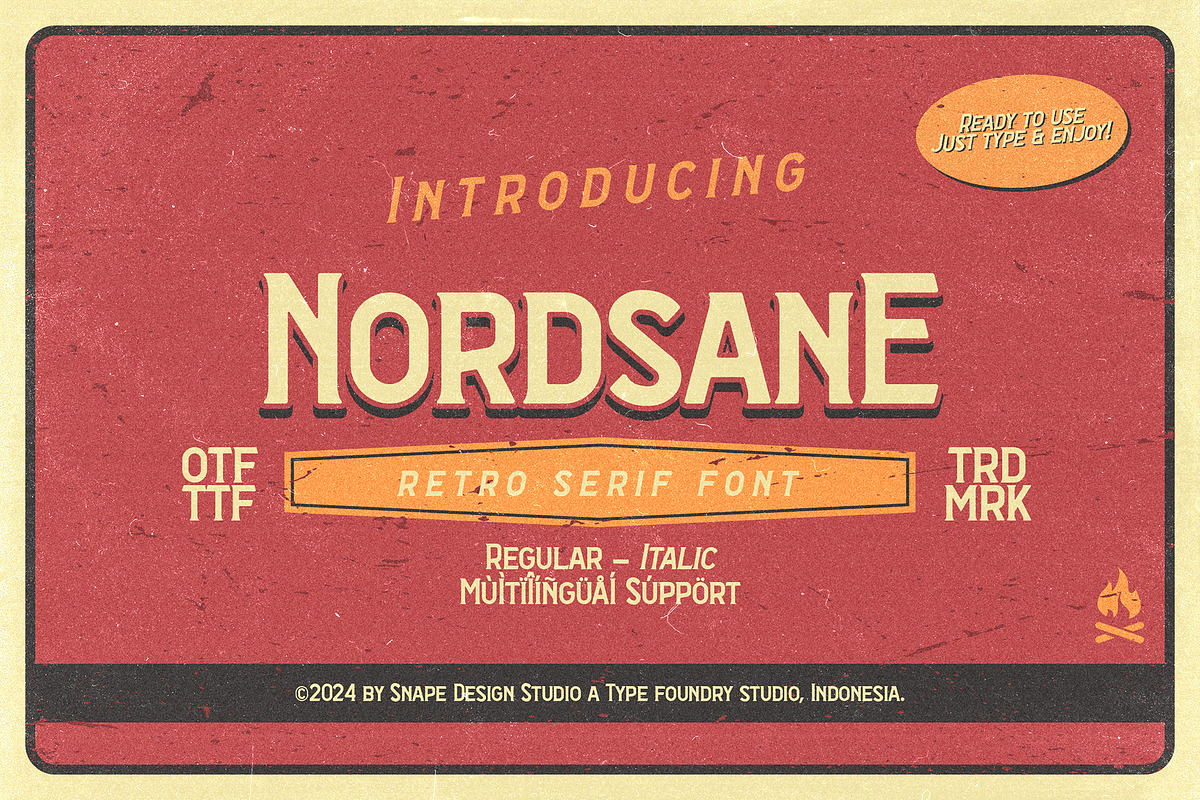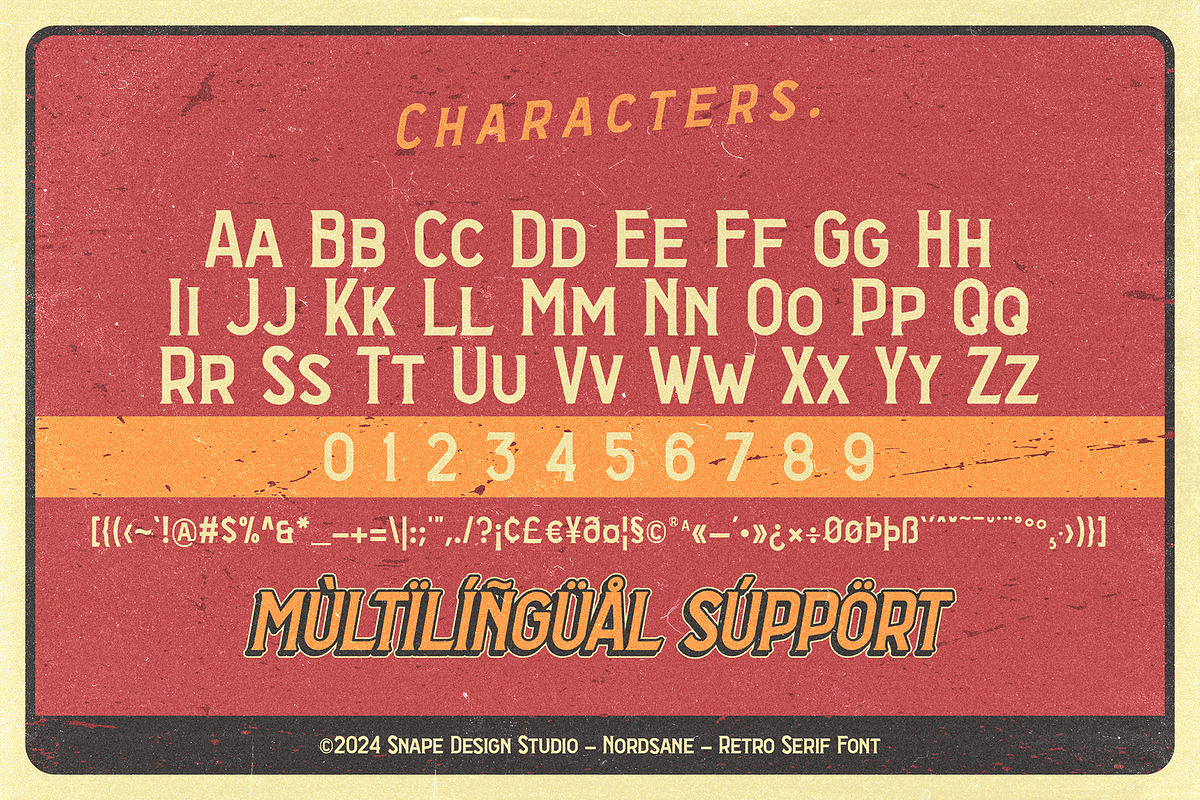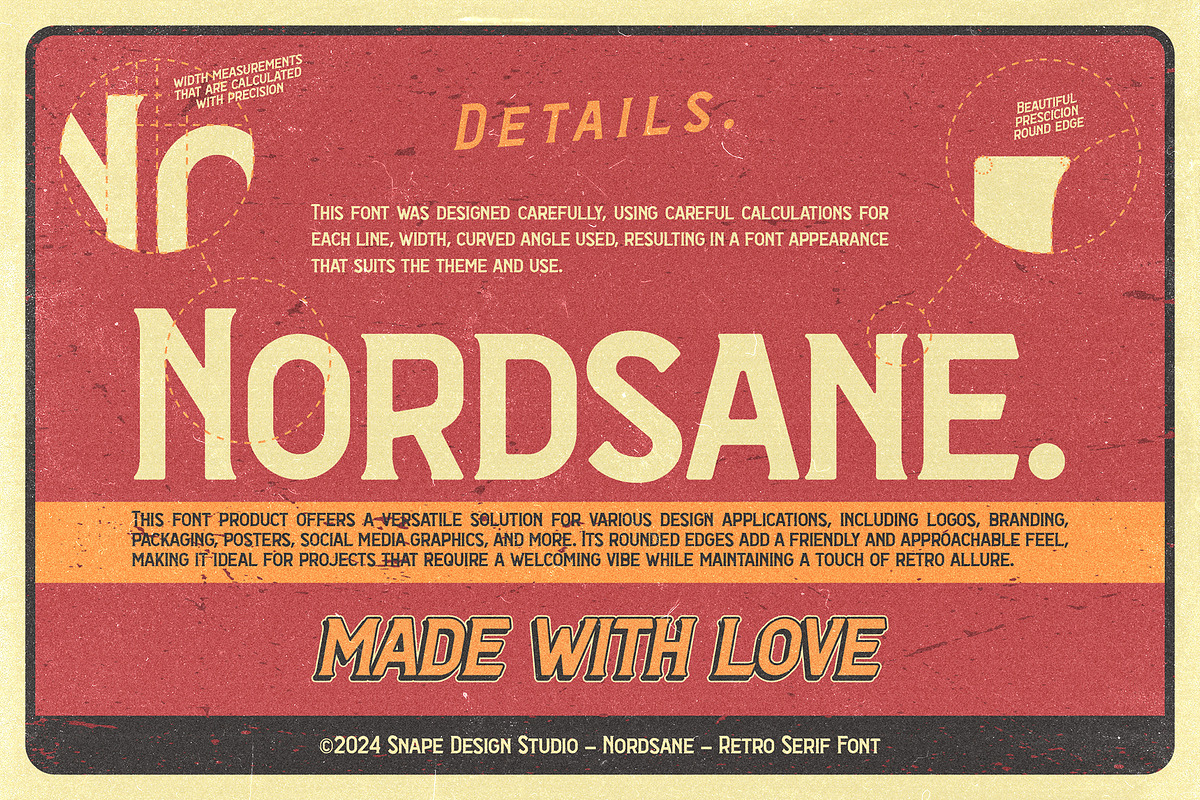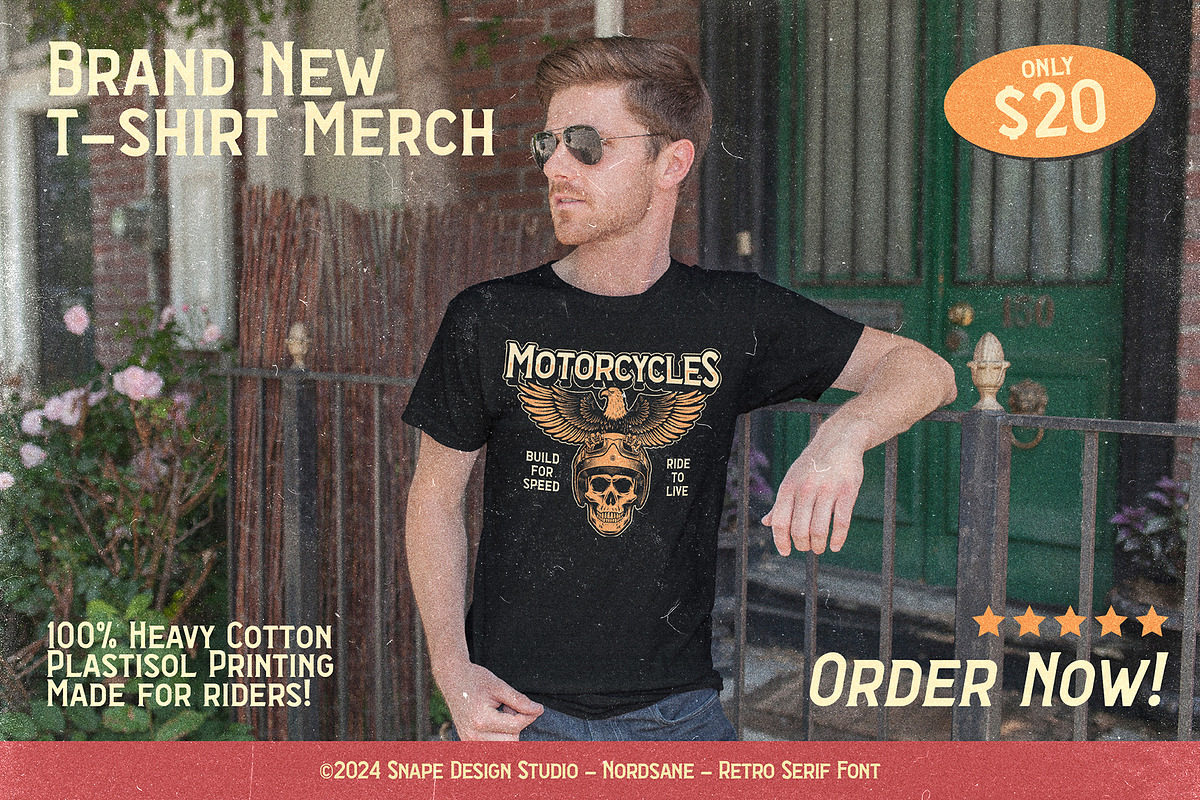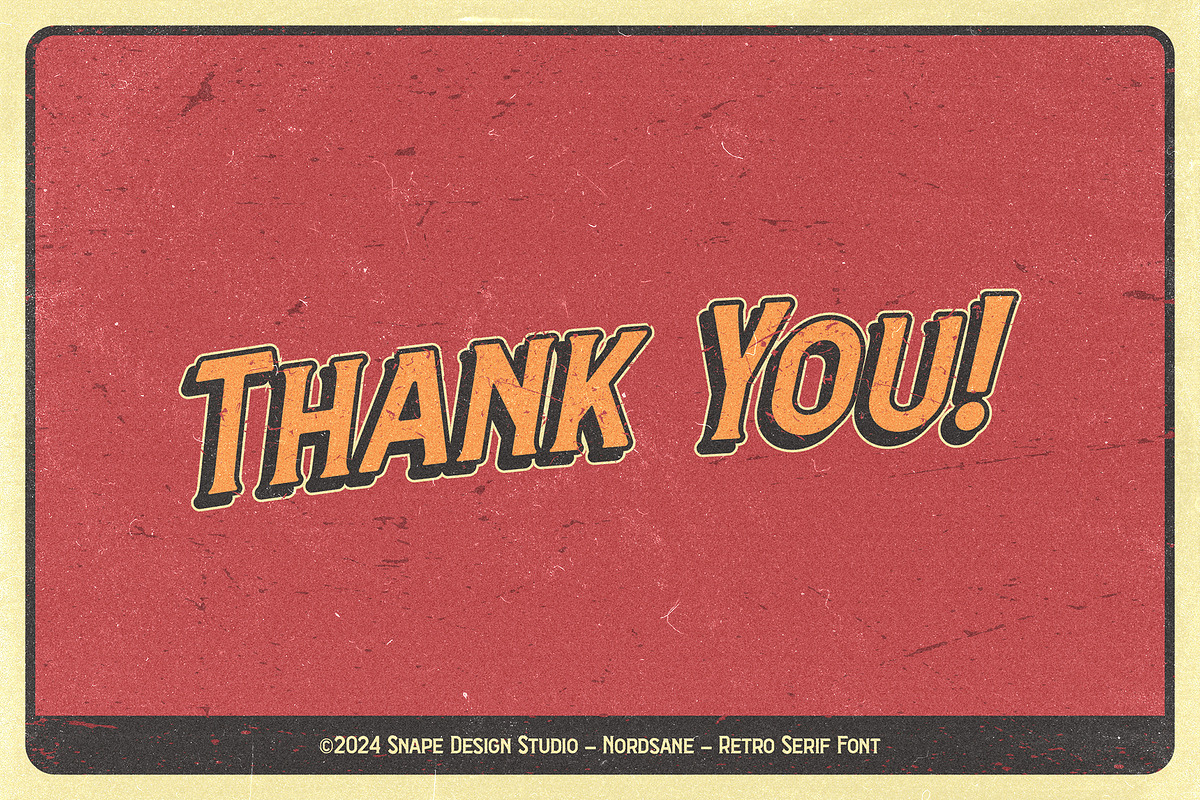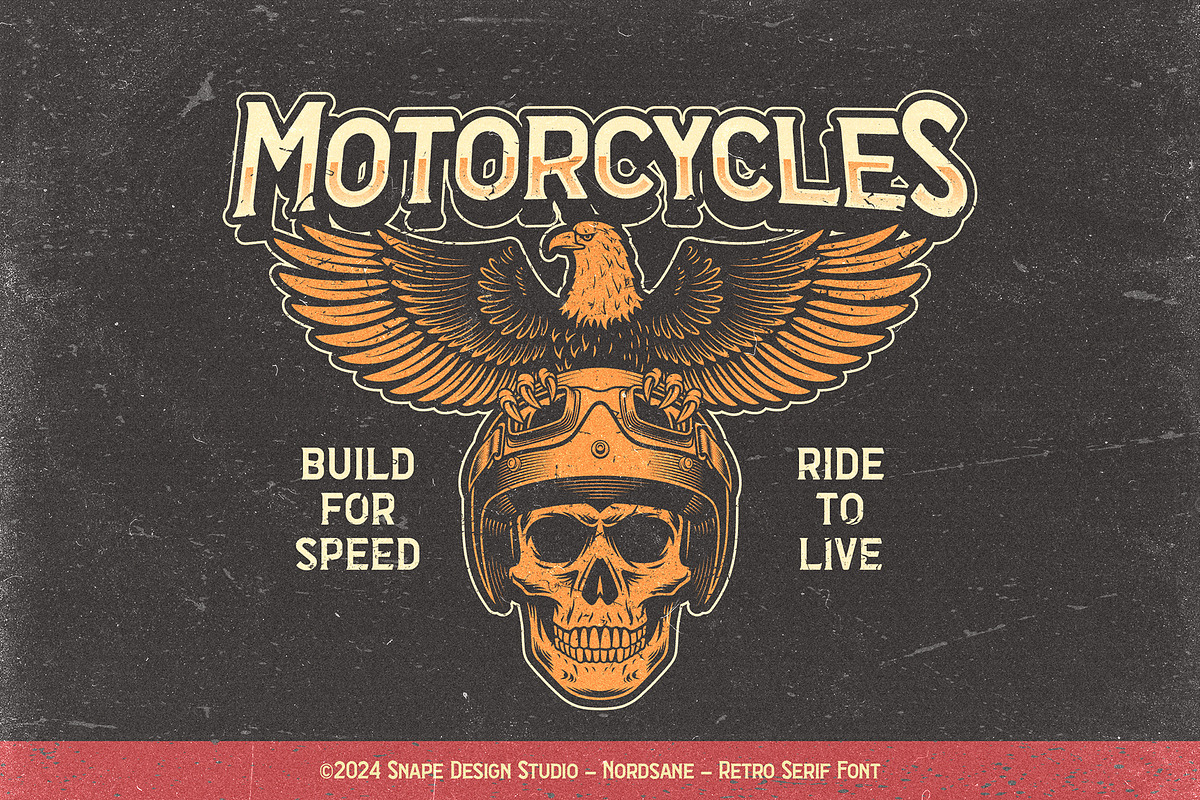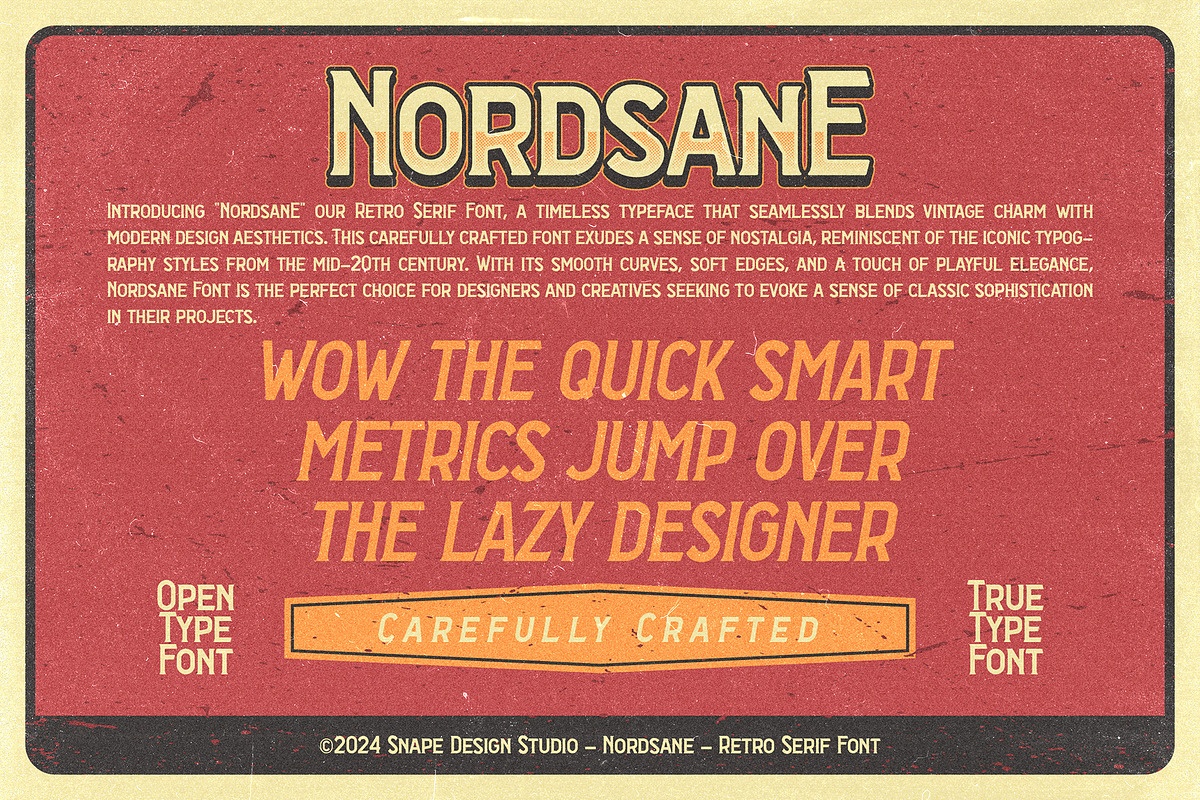
Nordsane - Retro Serif Font
Nordsane, a retro serif font, captures the essence of mid-century typography with its timeless design. Inspired by vintage print materials, it blends distinctive serifs with clean lines for a classic yet captivating aesthetic. Versatile and stylish, Nordsane is perfect for branding, packaging, and editorial layouts, effortlessly adding a touch of nostalgia to any project.
FAMILY FONT : Regular, Italic